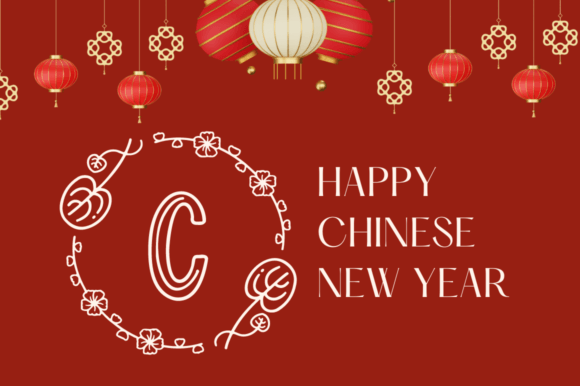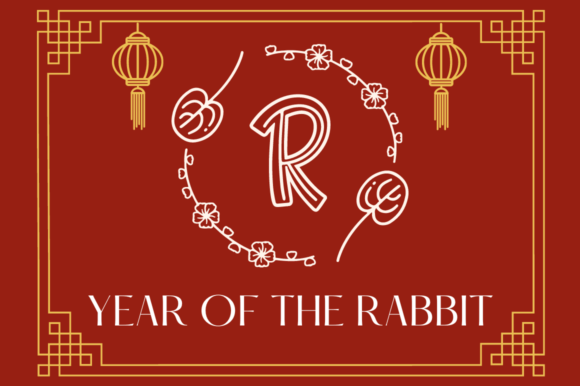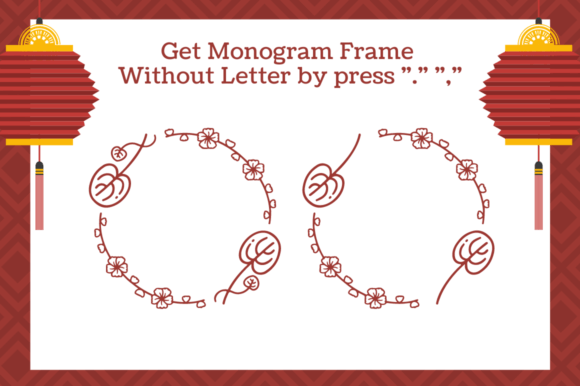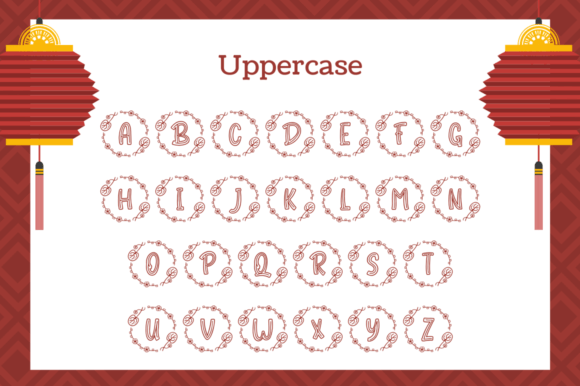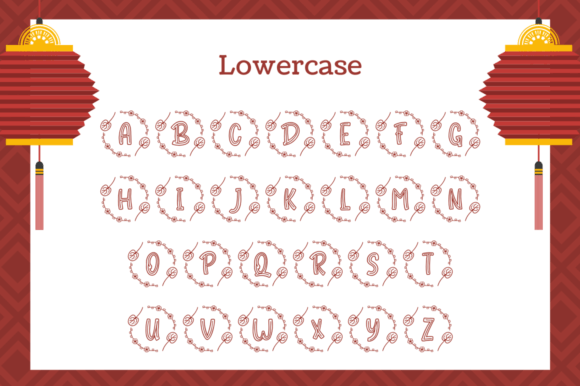
Introduction to Lunarin Chinese Monogram Font Font
Fonts play a crucial role in design, and the Lunarin Chinese Monogram Font font is a typeface that brings both character and versatility to any project. Whether you’re working on a branding project, a website, or a print design, the Lunarin Chinese Monogram Font font offers a unique style that can elevate your work.
Lunarin Chinese Monogram is a wreath display monogram inspired by Chinese botanical plants.
This font can be used to make Chinese new year themed gifts, including textiles, gifts for kids, and perfect gifts for a new homeowner, Chinese family, or anyone with a love of monograms .
Key Features of Lunarin Chinese Monogram Font Font
Why Choose Lunarin Chinese Monogram Font Font?
The Lunarin Chinese Monogram Font font is more than just a typeface – it’s a design tool that helps you communicate your message with style and clarity. Its unique character set and versatile design make it suitable for a wide range of applications, from elegant invitations to bold headlines.
With its carefully crafted letterforms and balanced proportions, the Lunarin Chinese Monogram Font font ensures readability and visual appeal across all mediums.
What makes Lunarin Chinese Monogram Font font special?
The Lunarin Chinese Monogram Font font stands out with its unique design, exceptional readability, and versatility across various design applications.